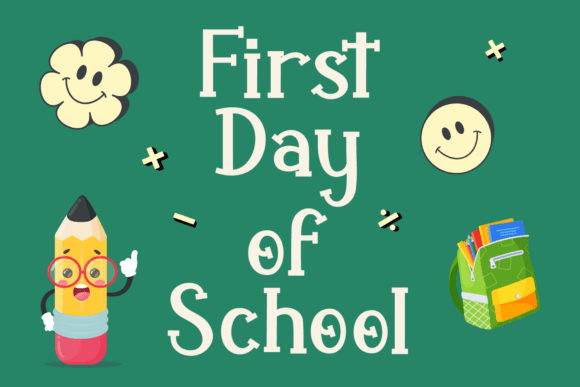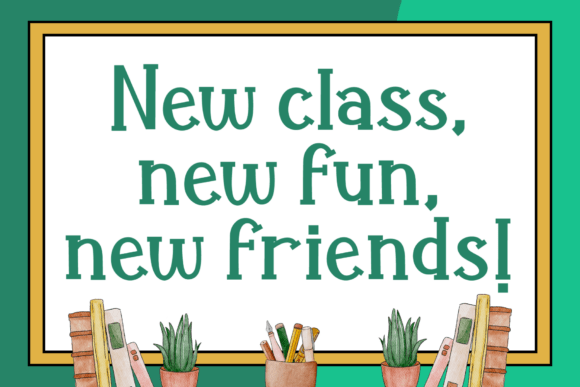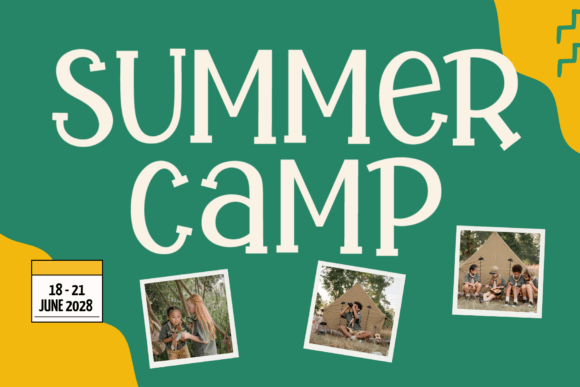
Introduction to Playful Letters Font
Do you remember the thrill of creating a handmade card for a loved one or a poster for a school project? The joy of combining colors, textures, and fonts to bring an idea to life is something that never gets old. As a designer, you understand the importance of having the right tools to bring your creative vision to life. That’s why we’re excited to introduce you to the Playful Letters Font, a high-quality serif font designed to add a touch of whimsy and personality to your designs.
Whether you’re working on a back-to-school project or a social media graphic, the Playful Letters Font is the perfect design resource to elevate your creative project. With its unique letterforms and transparent background, this font is perfect for bold headlines, eye-catching titles, and even social media content. Plus, it’s available for free download, making it an invaluable asset for any designer looking to add a bit of fun to their typography.
Key Features of Playful Letters Font
- Unique and whimsical design, perfect for creative projects that require a touch of playfulness.
- Transparent background, allowing for seamless integration with any design element.
- High-resolution design, suitable for printing and digital use at 300 DPI and above.
- Perfect for designers and artists looking for a fun and creative design resource to elevate their projects.
Honest Review: Playful Letters Font
I recently stumbled upon the Playful Letters Font and I must say, it’s been a game-changer for my design projects. As a designer, I’m always on the lookout for high-quality design resources that can elevate my work, and this font definitely delivers.
- ✨ The font’s playful and whimsical feel is perfect for creative projects that require a touch of personality.
- ✨ The transparent background option is super convenient for graphic designers who need to customize their designs.
- ⚠️ The font is not ideal for formal or professional projects, as its playful nature might come across as unprofessional.
- ⚠️ Some users might find the font’s unique design elements a bit too quirky or distracting.
Overall, I’m thoroughly impressed with the Playful Letters Font and would definitely recommend it to designers looking for a fun and creative design resource. Just be mindful of its limitations and use it wisely in your projects!
How to Use Playful Letters Font
The Playful Letters Font is a high-quality design resource perfect for creative projects. Its unique and playful style makes it an ideal choice for various applications, including logos, branding, and graphics.
To get the most out of the Playful Letters Font, experiment with different font sizes, colors, and combinations to create unique and eye-catching designs.
The Playful Letters Font is perfect for:
- Creating playful logos and branding
- Designing engaging graphics and illustrations
- Adding a touch of personality to presentations and documents